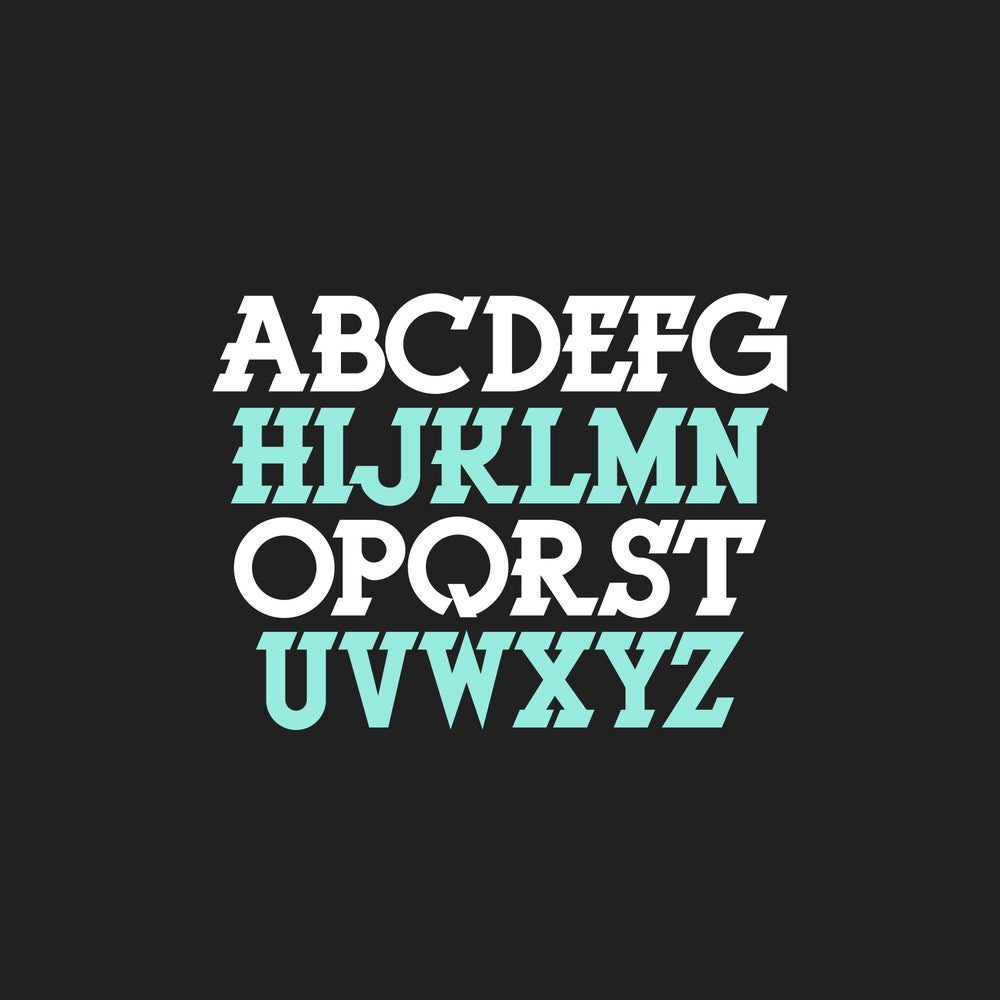
Cairo Slab UT
Redesign of a quircky Slab Serif variations from the book "100 alphabets publicitaires" (1946). The font includes accents and some extra ligatures.